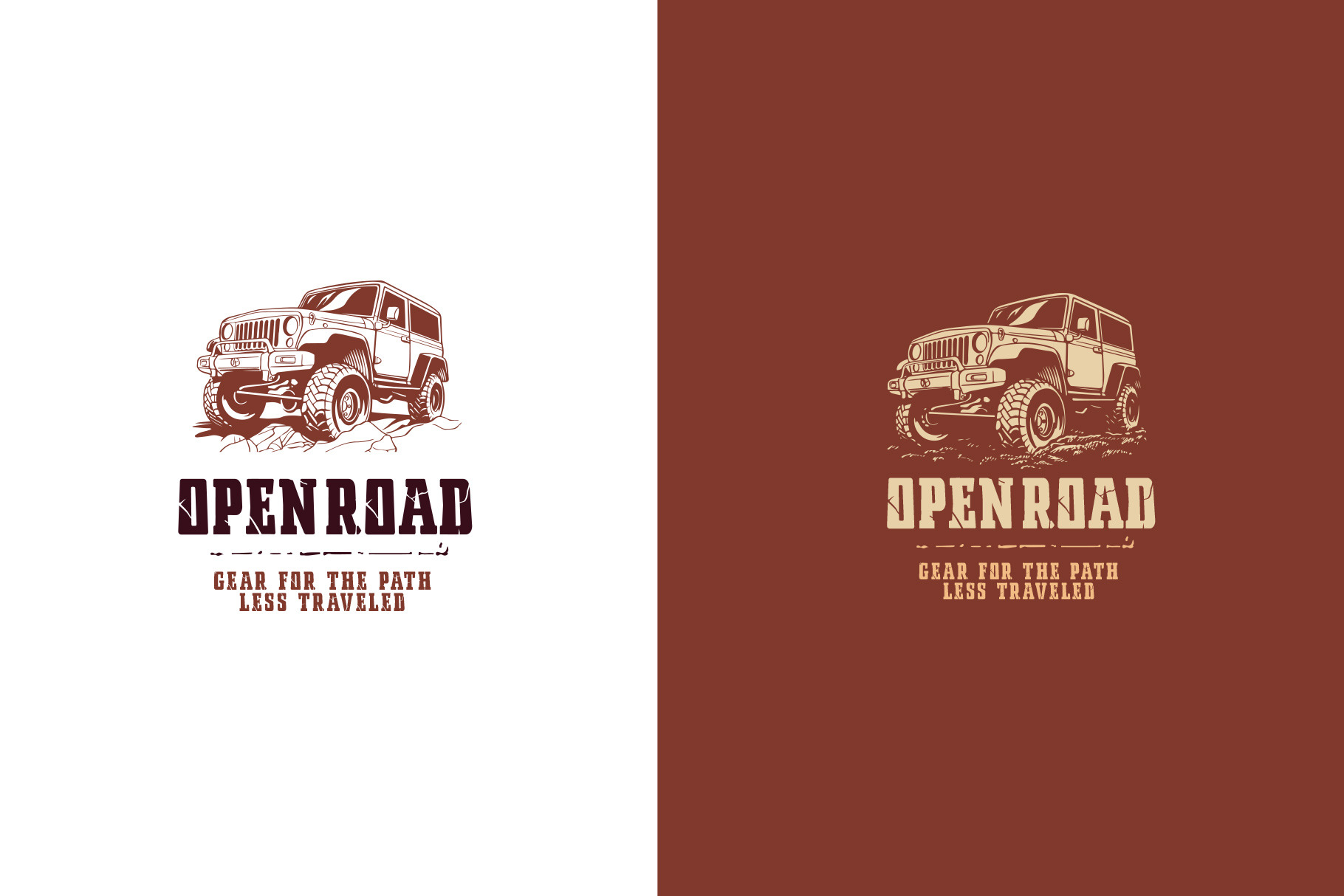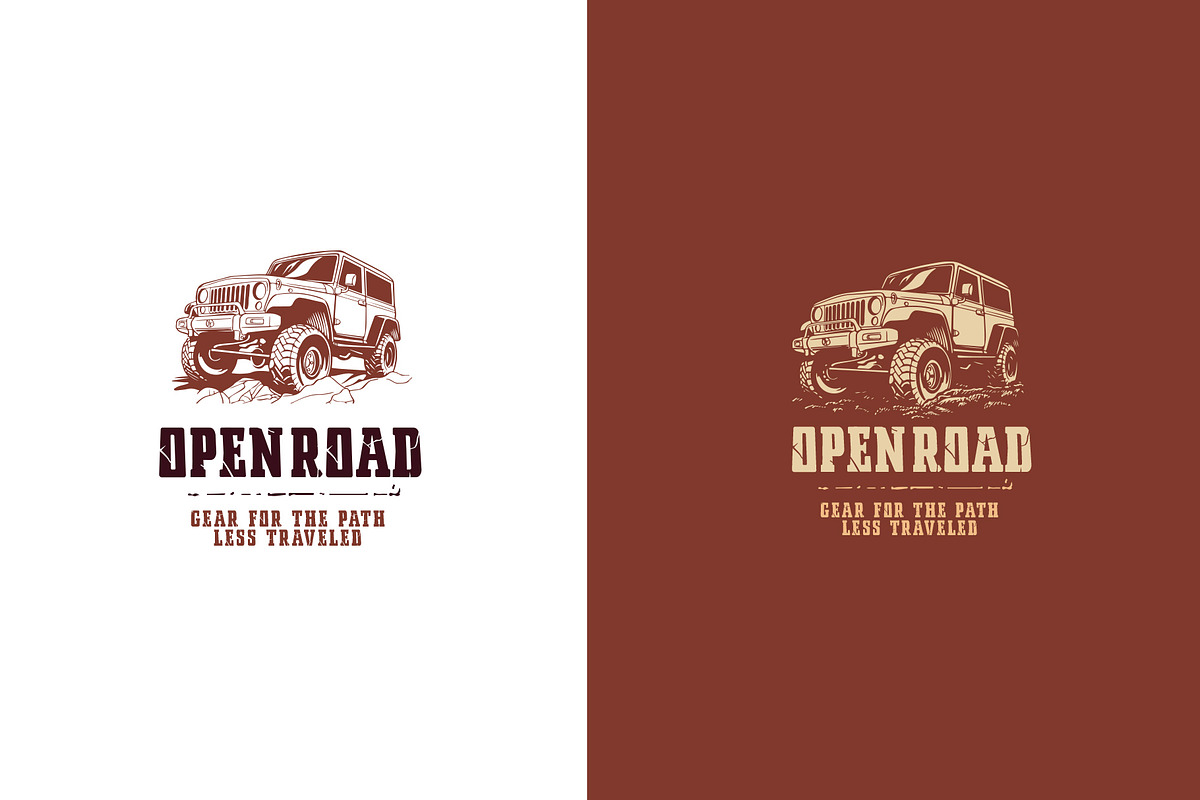
Overland car logo + font
Capture the rugged essence of off-road adventures with our dynamic off-road car logo. Our logo design seamlessly blends the thrill of off-road terrain with sleek, modern aesthetics. Immerse yourself in the world of outdoor exploration through our expertly crafted emblem, featuring bold typography and intricate illustrations that showcase the power and versatility of off-road vehicles. Elevate your brand with a logo that resonates with adventure enthusiasts and conveys a sense of strength, durability, and excitement. Explore our off-road car logo – where style meets the untamed wilderness. Perfect for automotive brands, outdoor enthusiasts, and adventure-centric businesses. Package content: